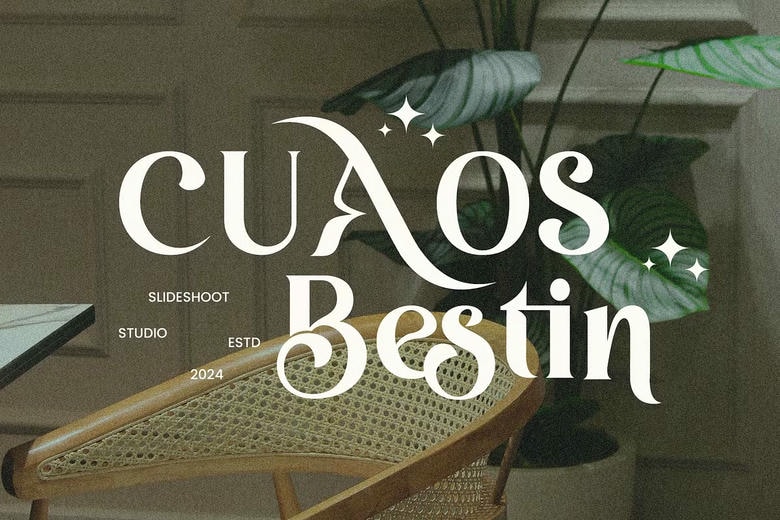
Cuaos Bestin Font
Cuaos Bestin is a Serif font that has a modern and retro look. This font has a beautiful character, suitable for combining with invitation card designs, cool logos, movie titles, movie names, business cards, book titles, brand names, and various other designs.
Cuaos Bestin is a smooth serif font that exudes sophistication and elegance. Its stylish alterations and ligatures make this font a perfect partner for any project.
Cuaos Bestin Serif Font